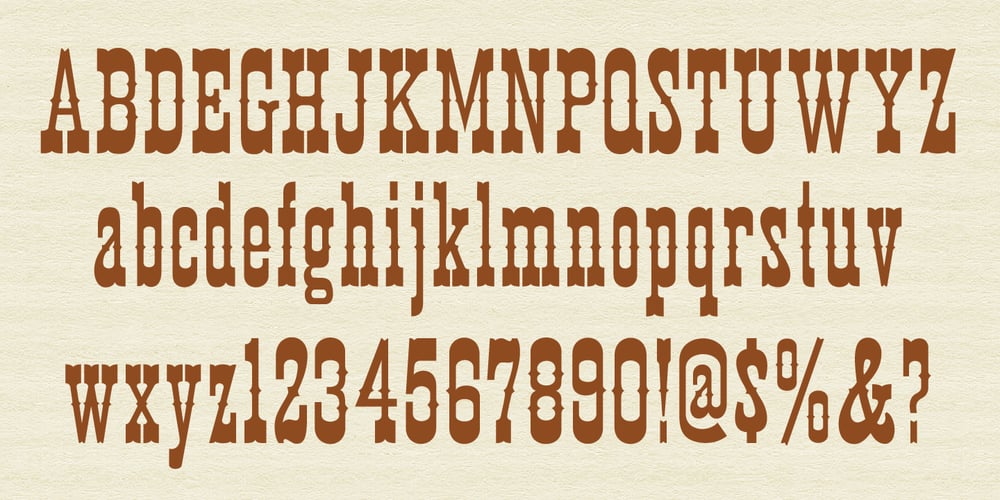
MPI Egyptian Ornamented Font Family was designed by William Hamilton Page and published by mpressInteractive. MPI Egyptian Ornamented contains 1 styles and family package options. Egyptian Ornamented is a decorative font based on the shapes found in a French Clarendon. Serifs are chunky and bifurcated, and “spurs” have been added to the strokes. This font emits the feeling of Old West wanted posters, rodeo broadsides, etc. It was first introduced by William H. Page & Company in 1870.